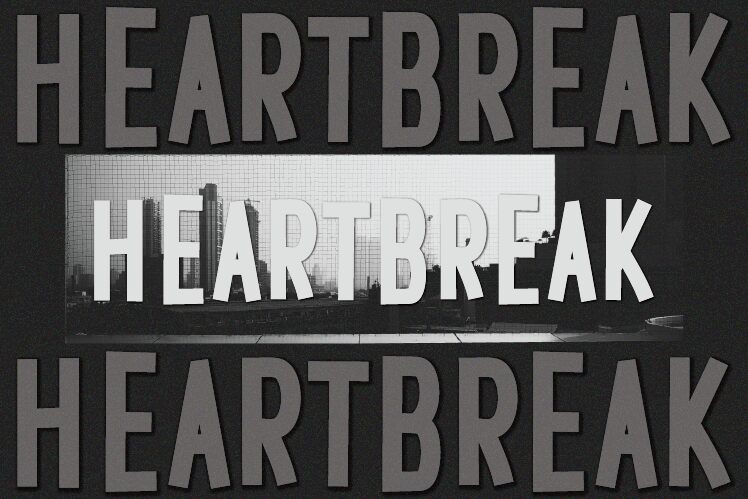
Heartbreak
Heartbreak font by HannaBie Creative Studio is a free comic display typeface with loud, towering letterforms and a punchy, hand-drawn edge. The chunky vertical strokes and slightly uneven shapes feel like they’ve been slammed onto the page with a thick marker, giving headlines a raw, emotional kick. Its tight rhythm and blocky structure make words feel compact and intense, like a shout in bold black ink.
Using Heartbreak, you can instantly energize comic covers, episode titles, YouTube thumbnails, teen book covers, gaming logos, bold posters, and sticker-style graphics. This free font thrives at large sizes where its rough charm and heavy weight can really hit. Pair it with a clean, light sans serif for body text to keep the message readable while Heartbreak does all the shouting up top.